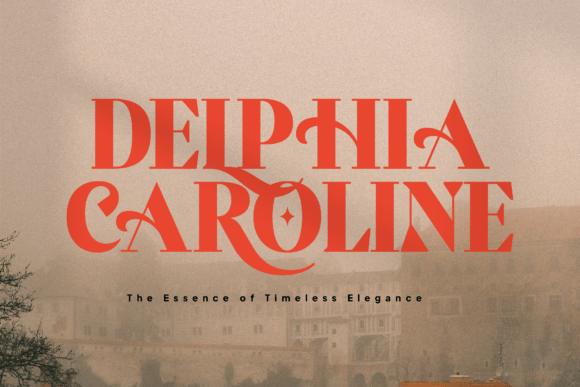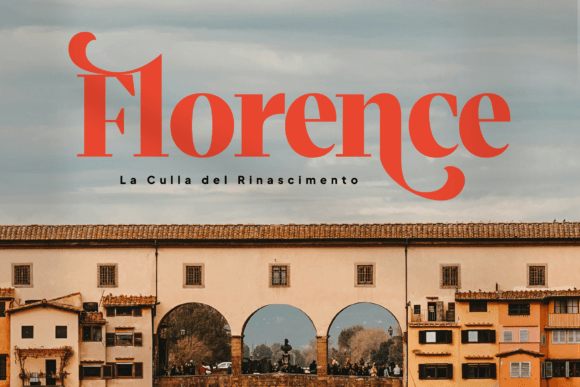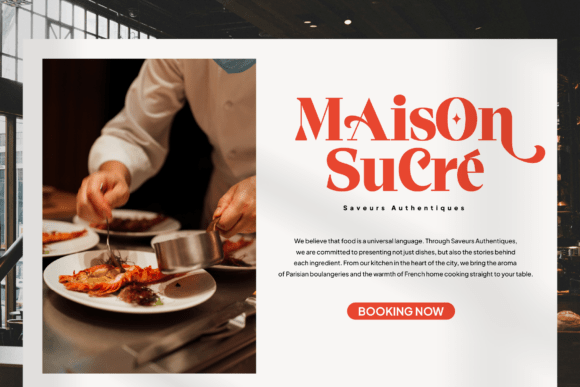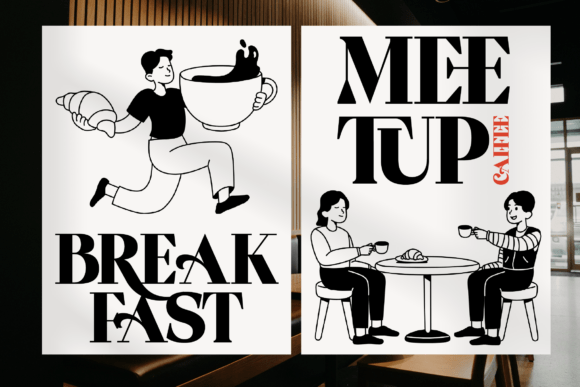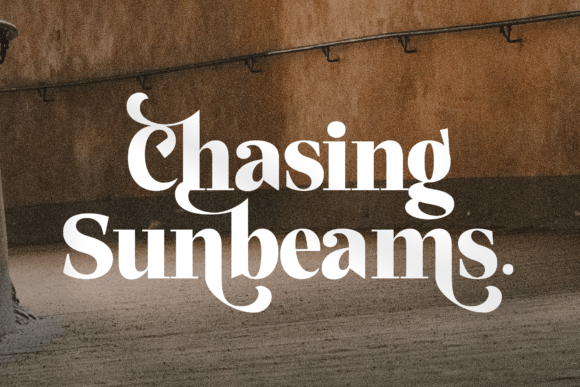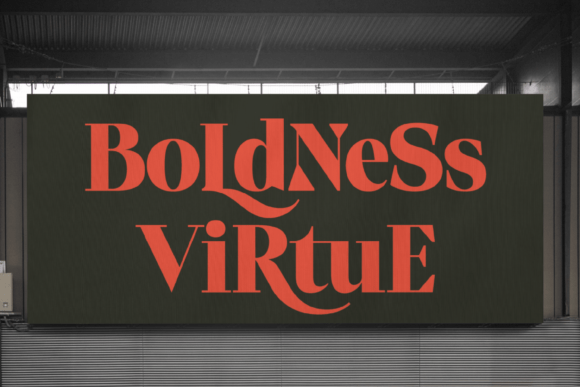
Introduction to Helonea Font
Experience the allure of strolling through a sun-kissed Milanese art gallery, or the fascination of noting the sparkle of a classic gold timepiece under the glow of a street light.
This discreet yet powerful elegance serves as the heart of Helonea Birthed from the inspiration to harmoniously blend the grandeur of ageless Roman geometry with the progressive aura of contemporary style, Helonea presents a captivating visual narrative.